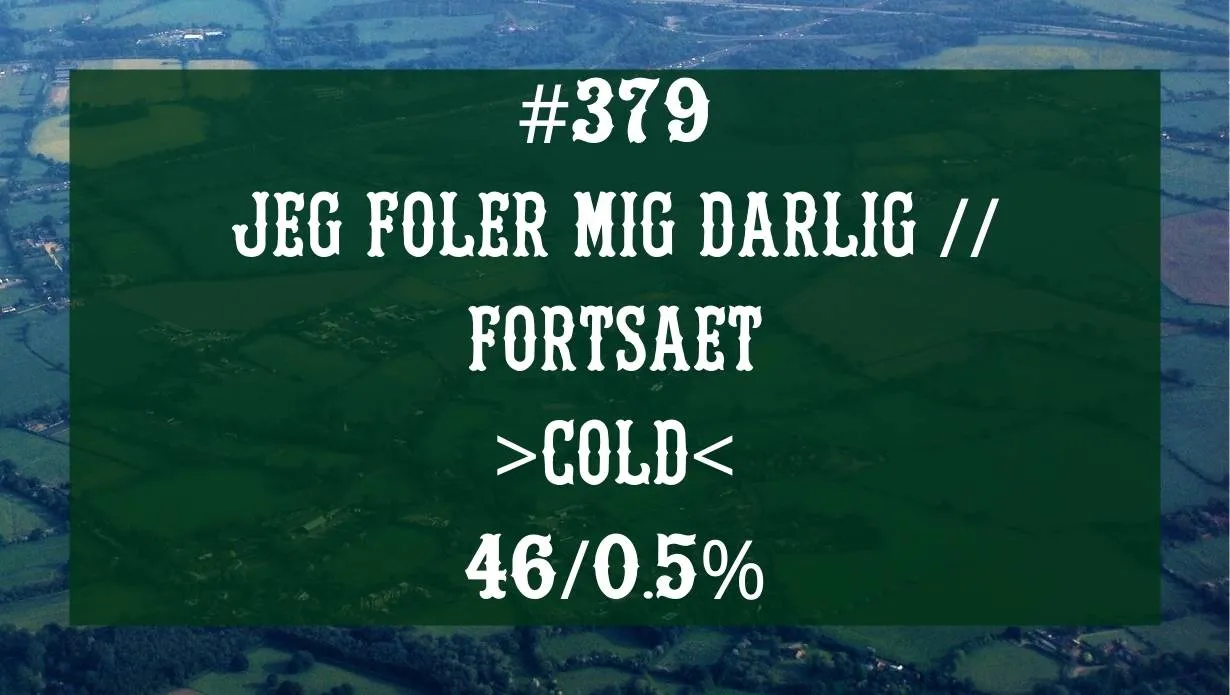
Stahls Tiffany Font is an elegant font that is inspired by the art and design of the renowned Stahls family. This typeface has a classic look and feels that make it perfect for use in high-end designs.
It also includes several OpenType features, such as ligatures and alternates, that give it an extra touch of elegance. This font is very close to the blastrick Font. If you’re looking for a similar font to this typeface, Arial Font is a good option.
• Stahls Tiffany Regular
View of Stahls Tiffany Font
DesignerStahls Inc
StyleFancy